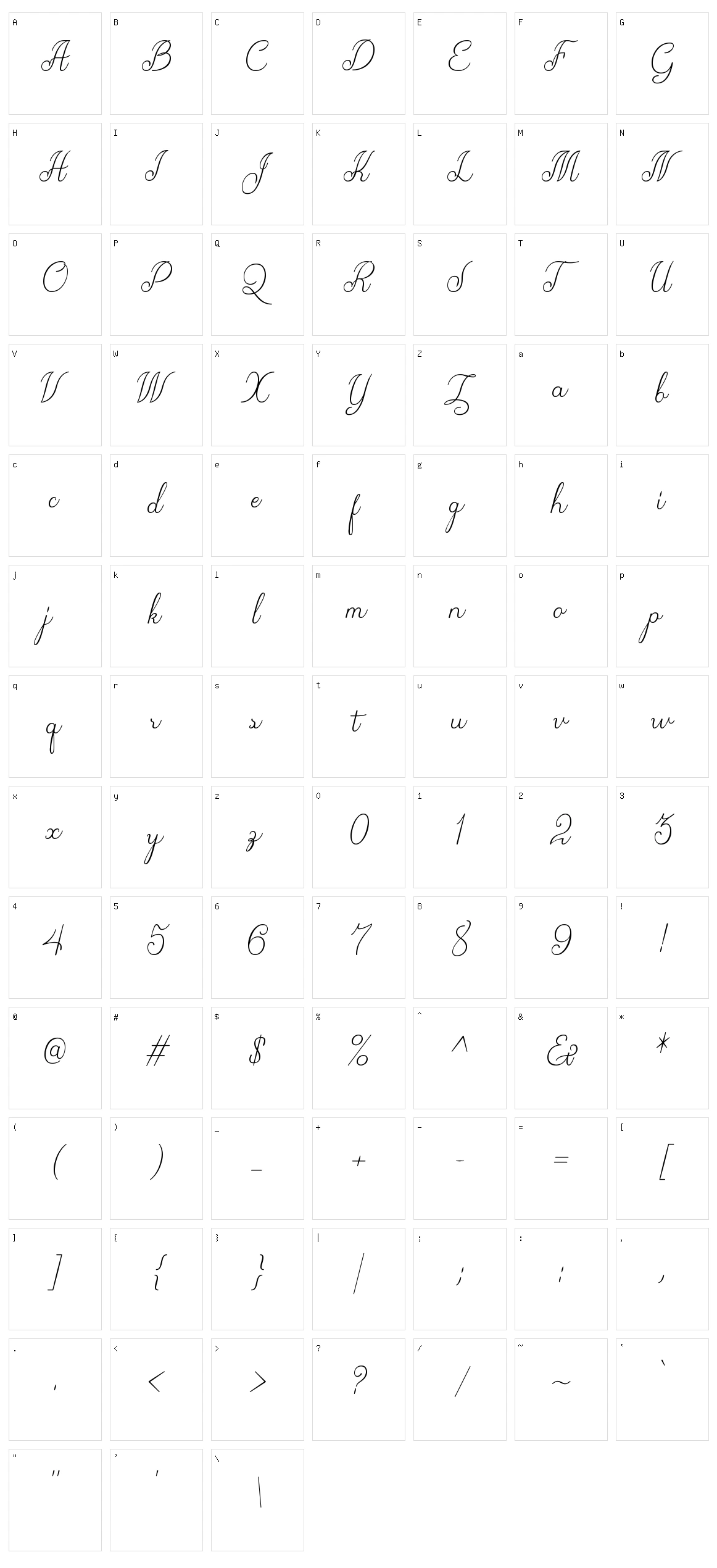
This font is support Opentype features:
* Kerning
* access all alternates
* Stylistic alternates
* Contextual alternates
* Initial form
* Terminal form
* Ligatures
* Contextual ligatures for call Stylistic set 02 and 03 ( ~ + a = a.ss03 and a +`~ = a.ss02 )
* Fraction
* stylistic set 01-11